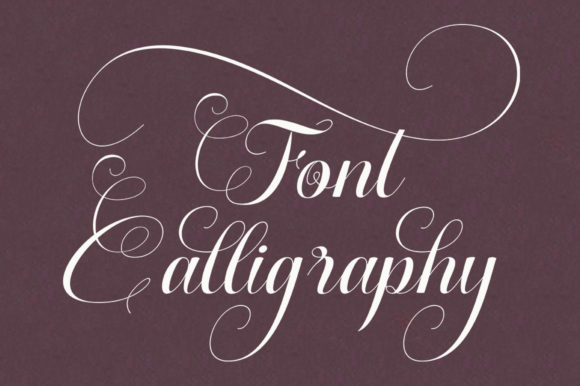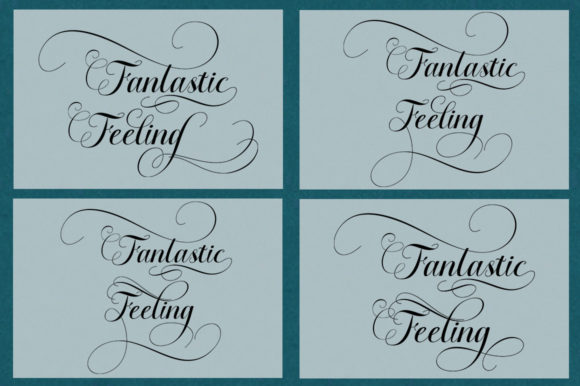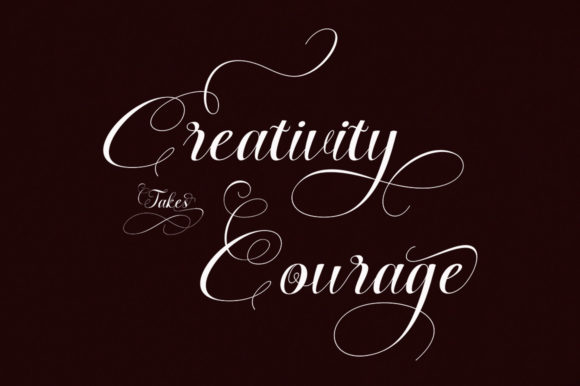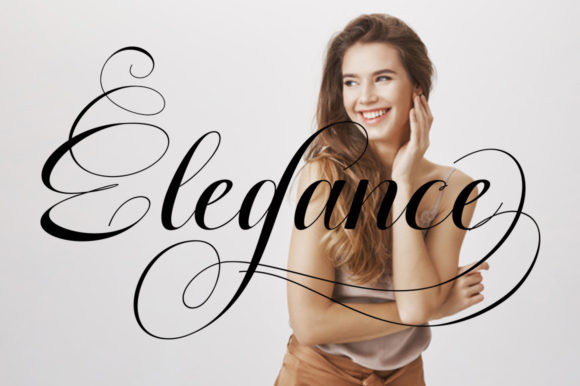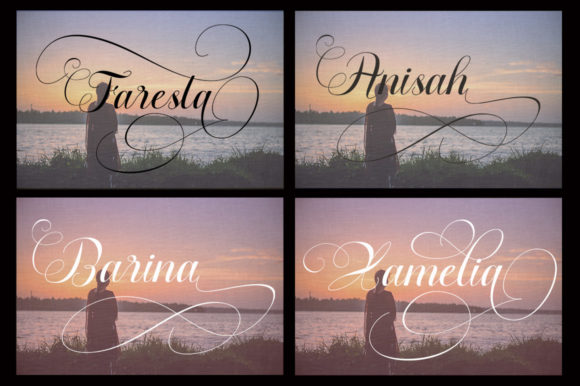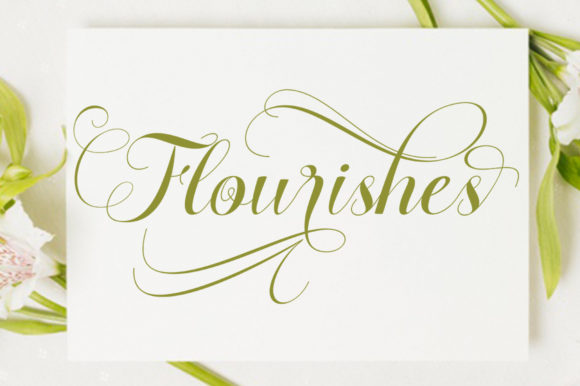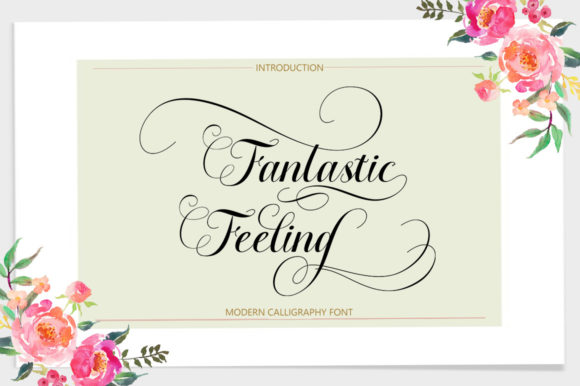
Fantastic Feeling Font: Elevate Your Designs with a Touch of Luxury
Are you tired of using the same old fonts in your design projects? Do you want to add a touch of elegance and sophistication to your creations? Look no further than the Fantastic Feeling Font, a beautiful light handwritten font that is sure to make your designs stand out.
What Makes Fantastic Feeling Font So Special?
Fantastic Feeling Font is a unique and stunning font that is perfect for designers and crafters who want to add a luxury spark to their projects. This font has a distinctive feel that sets it apart from other fonts, making it ideal for creating eye-catching designs that grab attention.
One of the key features of Fantastic Feeling Font is its PUA encoding. This means that you can access all of the amazing glyphs and ligatures with ease, giving you complete creative control over your designs. Whether you’re creating a logo, a brochure, or a social media post, this font is sure to help you create a design that is both beautiful and effective.
The Benefits of Using Fantastic Feeling Font
So why should you choose Fantastic Feeling Font for your design projects? Here are just a few benefits of using this amazing font:
- Unique and eye-catching: Fantastic Feeling Font has a distinctive feel that sets it apart from other fonts, making it perfect for creating designs that stand out.
- Luxury and sophisticated: This font has a luxurious and sophisticated feel that is perfect for high-end designs, such as luxury branding, packaging, and advertising.
- Easy to use: Fantastic Feeling Font is PUA encoded, making it easy to access all of the glyphs and ligatures.
- Versatile: This font is perfect for a wide range of design projects, from logos and brochures to social media posts and website headers.
How to Use Fantastic Feeling Font in Your Designs
Using Fantastic Feeling Font in your designs is easy. Here are a few tips to get you started:
- Pair it with other fonts: Fantastic Feeling Font looks great when paired with other fonts, such as sans-serif fonts or script fonts.
- Experiment with different sizes: This font looks great in a variety of sizes, from large headings to smaller body text.
- Use it for headlines and titles: Fantastic Feeling Font is perfect for headlines and titles, where its unique feel can really make an impact.
Who Can Benefit from Using Fantastic Feeling Font?
Fantastic Feeling Font is perfect for a wide range of designers and crafters, including:
- Graphic designers: This font is perfect for graphic designers who want to create eye-catching designs that stand out.
- Branding experts: Fantastic Feeling Font is ideal for branding experts who want to create luxurious and sophisticated brands.
- Crafters: This font is also perfect for crafters who want to add a touch of elegance and sophistication to their projects.
In conclusion, Fantastic Feeling Font is a beautiful light handwritten font that is perfect for designers and crafters who want to add a touch of luxury and sophistication to their projects. With its unique feel, PUA encoding, and versatility, this font is sure to elevate your designs and help you create stunning visuals that grab attention.